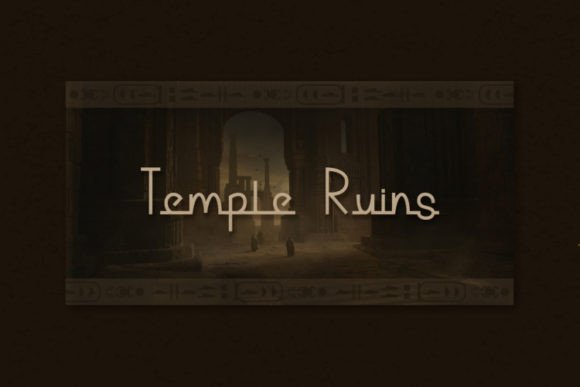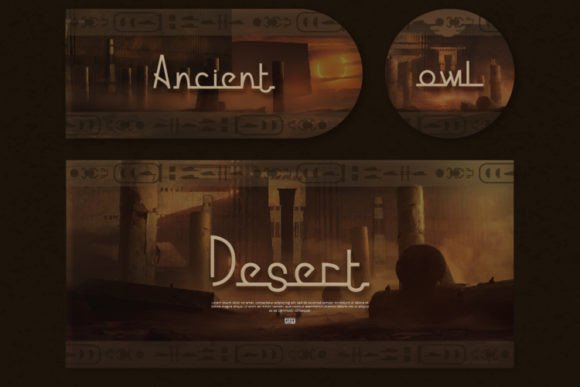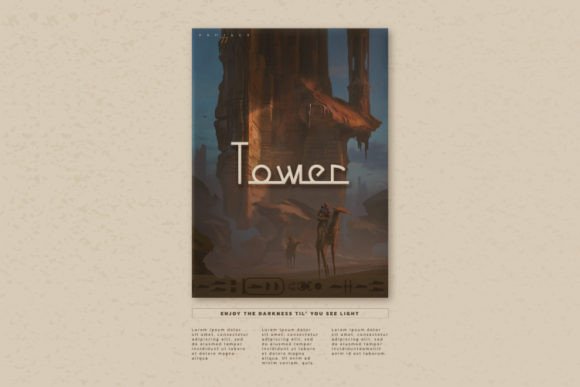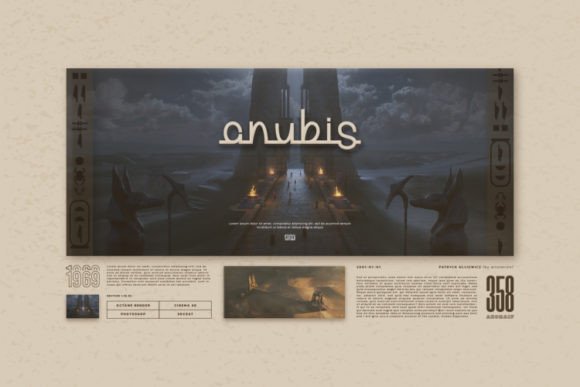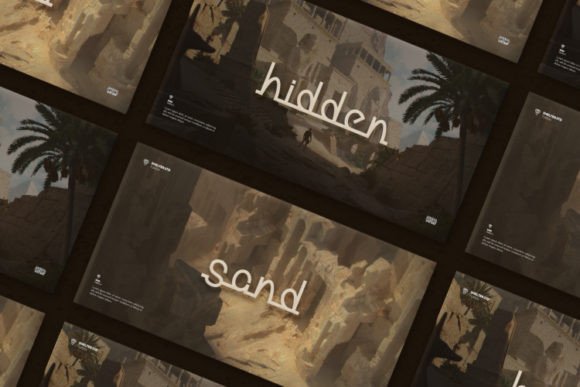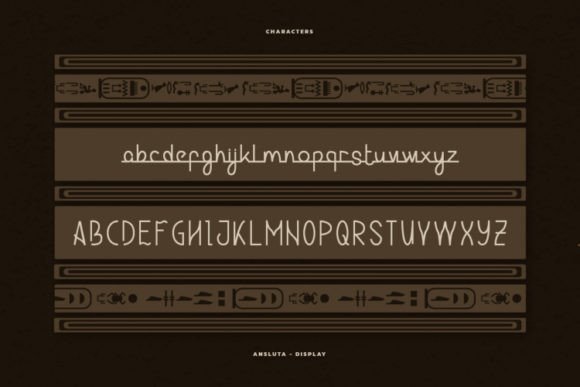
Discover the Unique Charm of Ansluta Font: Elevate Your Designs with its Stunning Style
In the vast world of typography, certain fonts stand out for their unique flair and versatility. Among them is the Ansluta font, a cool and aesthetically pleasing display font that has been capturing the hearts of designers and crafters alike. With its incredible style and wide range of applications, Ansluta is the perfect choice for those looking to add a touch of sophistication and elegance to their designs.
What Makes Ansluta Font So Special?
Ansluta font boasts a distinctive and modern look that sets it apart from other fonts in the display category. Its sleek lines, balanced proportions, and beautiful curves make it a visually appealing choice for a variety of design projects. Whether you’re working on a logo, a poster, a website, or any other visual material, Ansluta can help you create spectacular designs that are sure to grab attention.
Key Features of Ansluta Font
- Unique Style: Ansluta’s design is both cool and aesthetically pleasing, making it perfect for projects that require a modern and fresh look.
- Versatility: This font is highly versatile and can be used in a wide range of design projects, from digital media to print materials.
- Ease of Use: Ansluta is easy to read and works well in both large and small sizes, making it suitable for various applications.
- Aesthetic Appeal: Its sleek lines and balanced proportions give Ansluta an aesthetic appeal that can elevate the look of any design.
How to Use Ansluta Font in Your Designs
Integrating Ansluta into your design projects is straightforward. Here are some tips on how to make the most out of this stunning font:
- Pair it with Other Fonts: Ansluta works well when paired with complementary fonts. Try combining it with sans-serif fonts for a modern look or with script fonts for a more elegant feel.
- Experiment with Sizes: Ansluta’s clear and readable design makes it suitable for use in various sizes. Experiment with different sizes to find the perfect balance for your design.
- Play with Colors: The versatility of Ansluta allows it to work well with a variety of color schemes. Don’t be afraid to experiment with different colors to find the one that best suits your design.
- Use it for Headers and Titles: Ansluta’s unique style makes it perfect for headers and titles. Use it to draw attention and add a touch of elegance to your designs.
Who Can Benefit from Using Ansluta Font?
Ansluta font is a valuable addition to the toolkit of various professionals and hobbyists, including:
- Graphic Designers: Looking for a modern and versatile font to use in their projects.
- Web Designers: Seeking a font that can enhance the visual appeal of their websites.
- Digital Artists: Interested in typography and looking for unique fonts to use in their digital art.
- Crafters: Working on DIY projects that require a personal touch and aesthetic appeal.
Ansluta font is more than just a cool and aesthetically pleasing display font. It’s a tool that can help designers and crafters create spectacular designs that stand out. With its unique style, versatility, and ease of use, Ansluta is sure to become a favorite in the world of typography. So, fall in love with its incredible style and use it to elevate your designs to new heights.
Whether you’re a professional designer or a hobbyist looking for a special font to use in your projects, Ansluta is definitely worth checking out. Its ability to add a touch of sophistication and elegance to any design makes it a valuable asset in the world of typography.